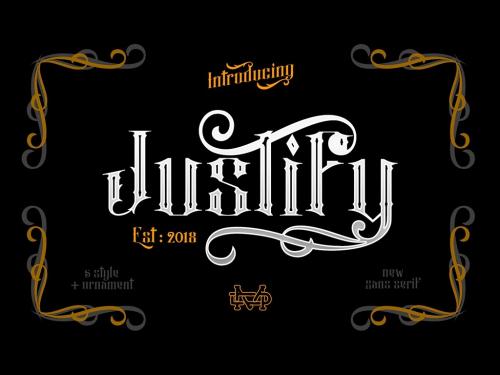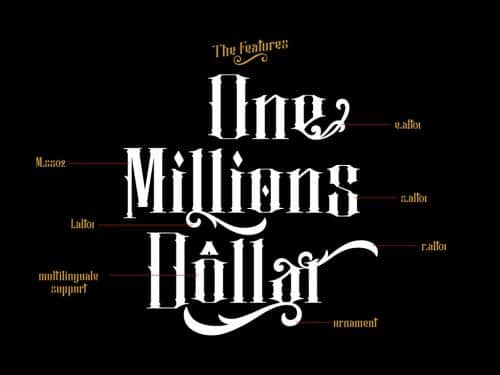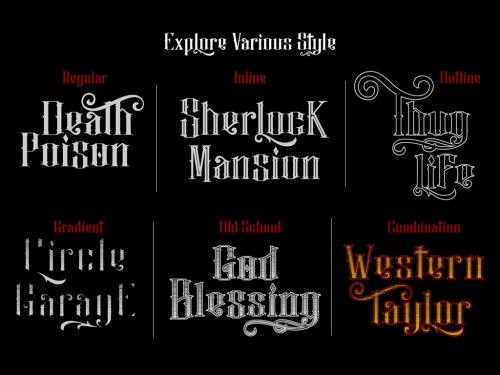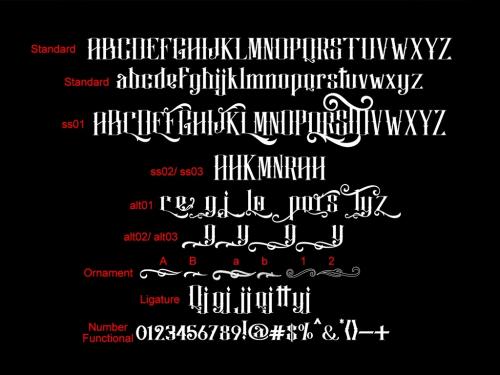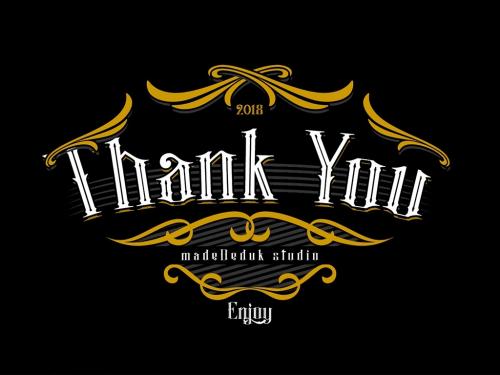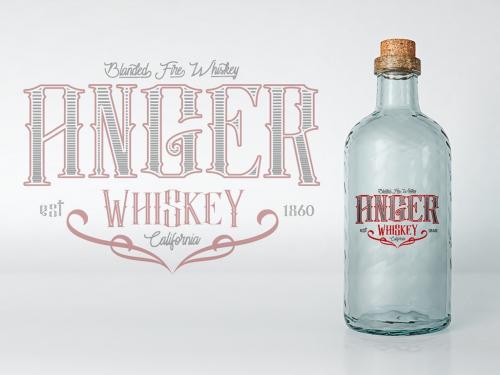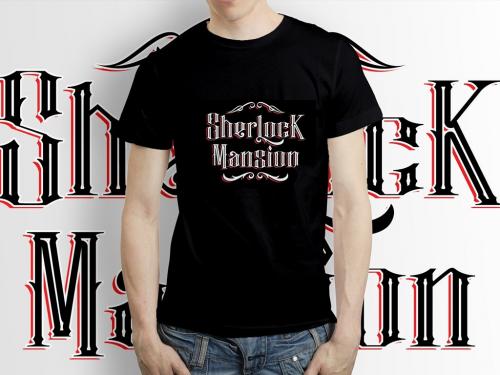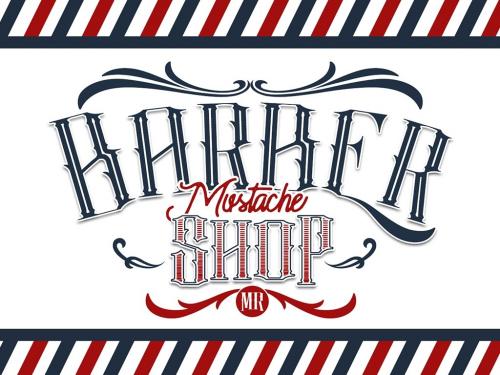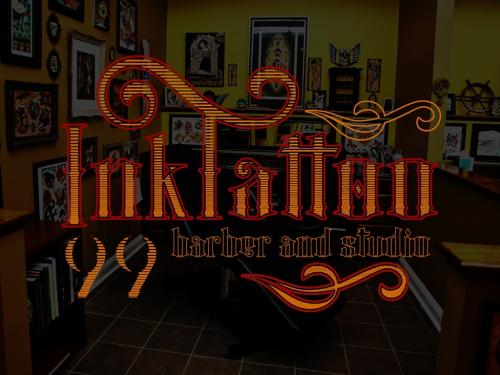
Justify – Layered Font Package is a typeface inspired in tattoo letters, designed by madeDeduk! Justify Font have six style plus ornament, Justify perfect for all your designs project.